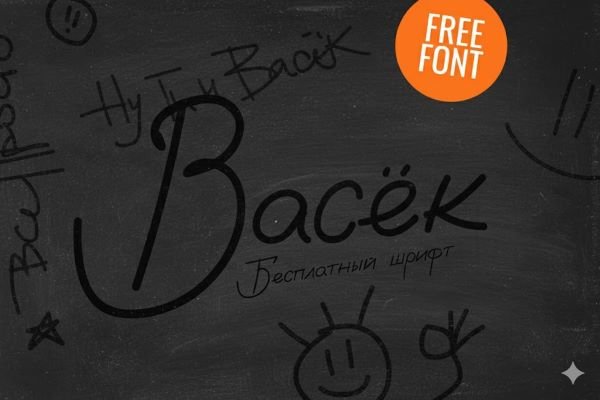
Vasek Font
Vasek Font is a flexible, adaptable handwritten script by Ilya Designgsta that effortlessly spans casual notes, memes, comic graphics, and design titles. This versatile typeface brings a friendly, approachable character to every application with its authentic handwritten charm and personal touch. Supporting both Russian and English with essential special characters, Vasek Font quickly becomes an indispensable creative companion, always ready to infuse your projects with warmth, spontaneity, and genuine human connection.
Designer: Ilya Designgsta ↗
Font Style: Handwritten, Script
Category: Casual, Handwriting